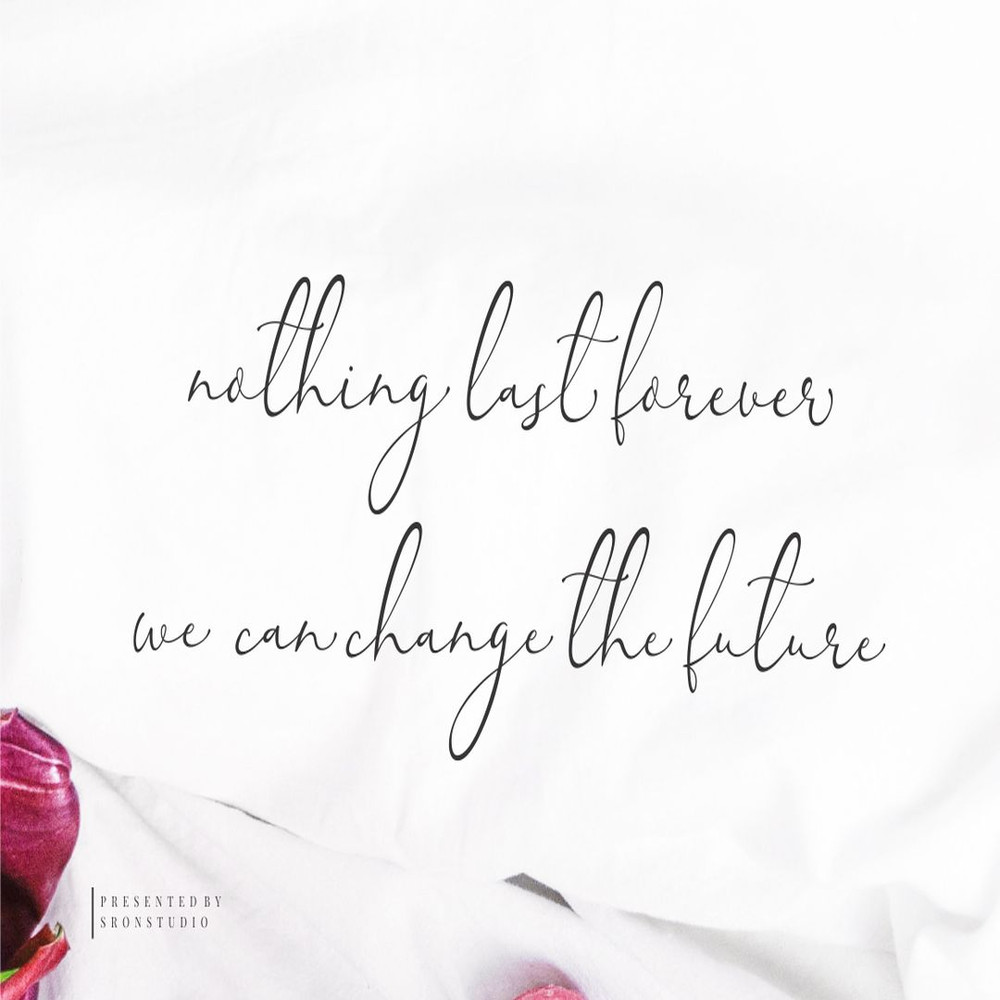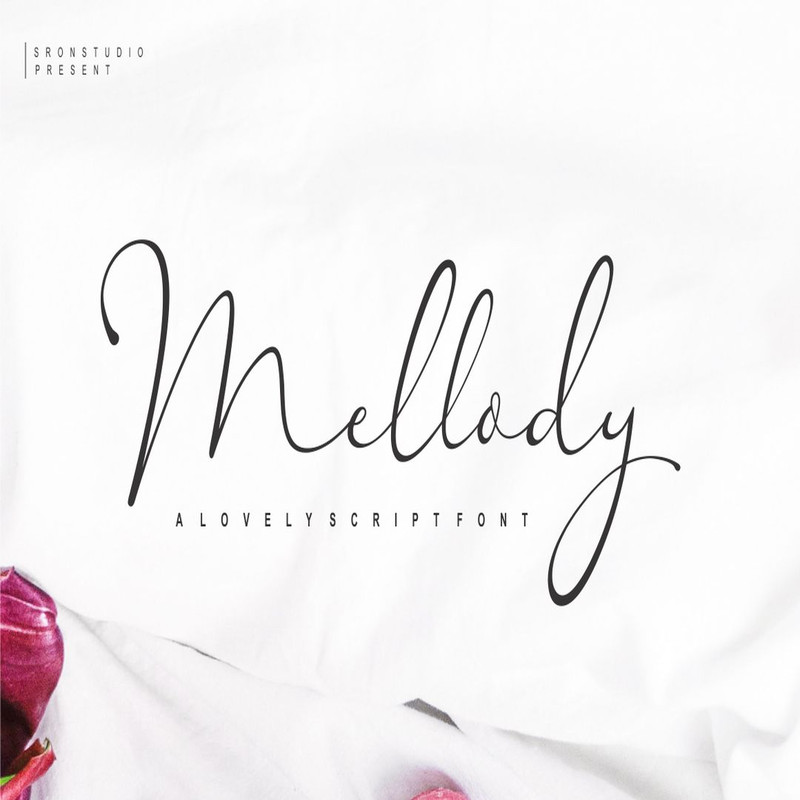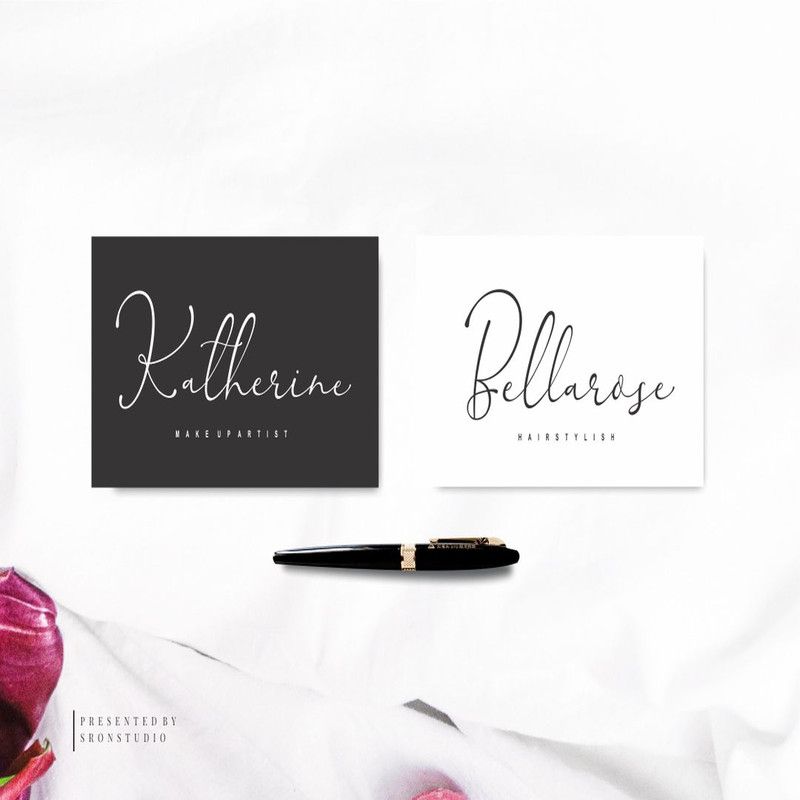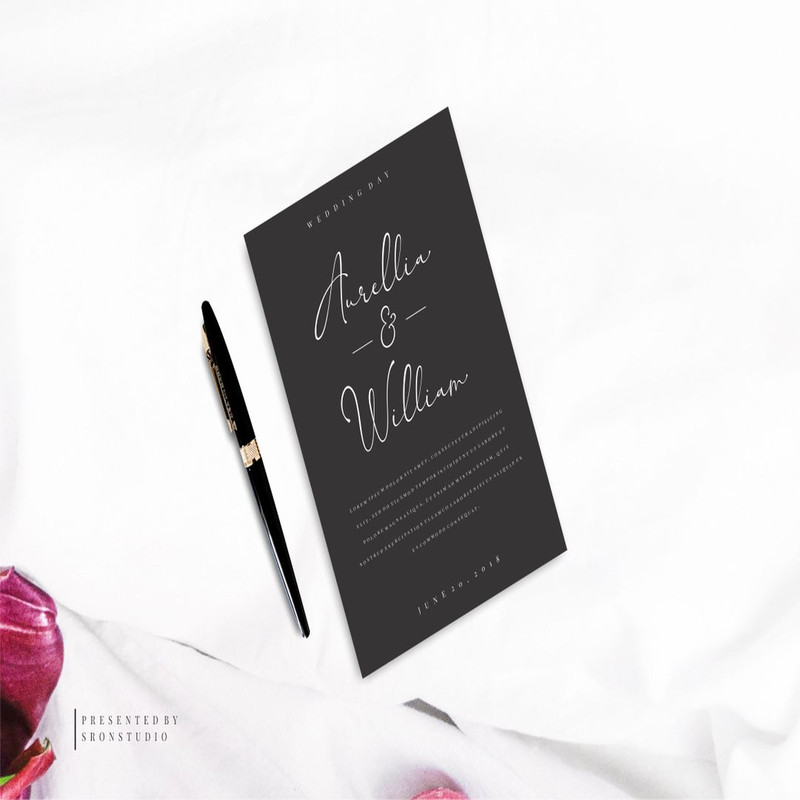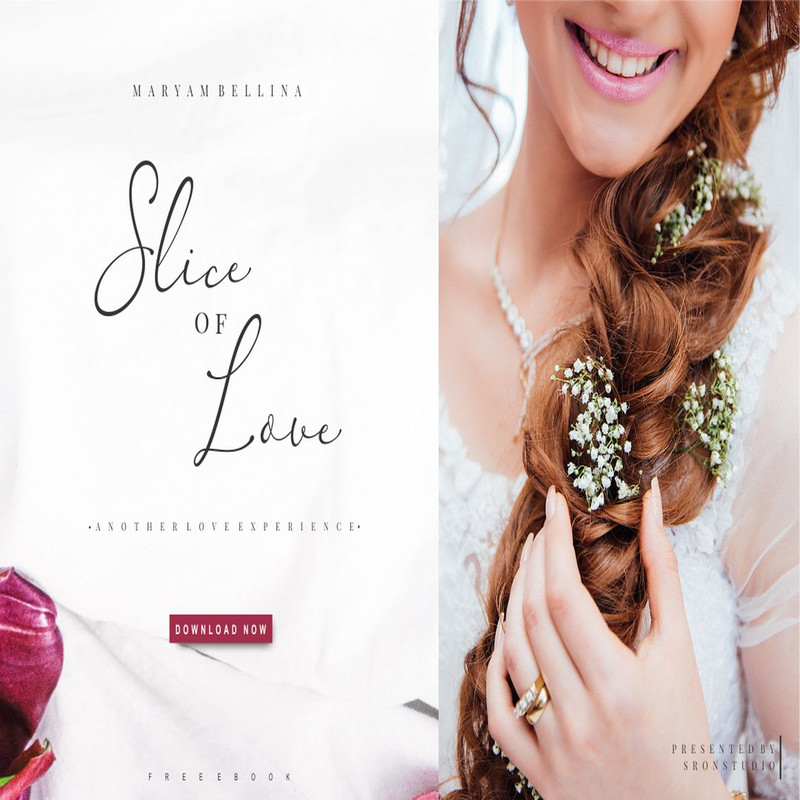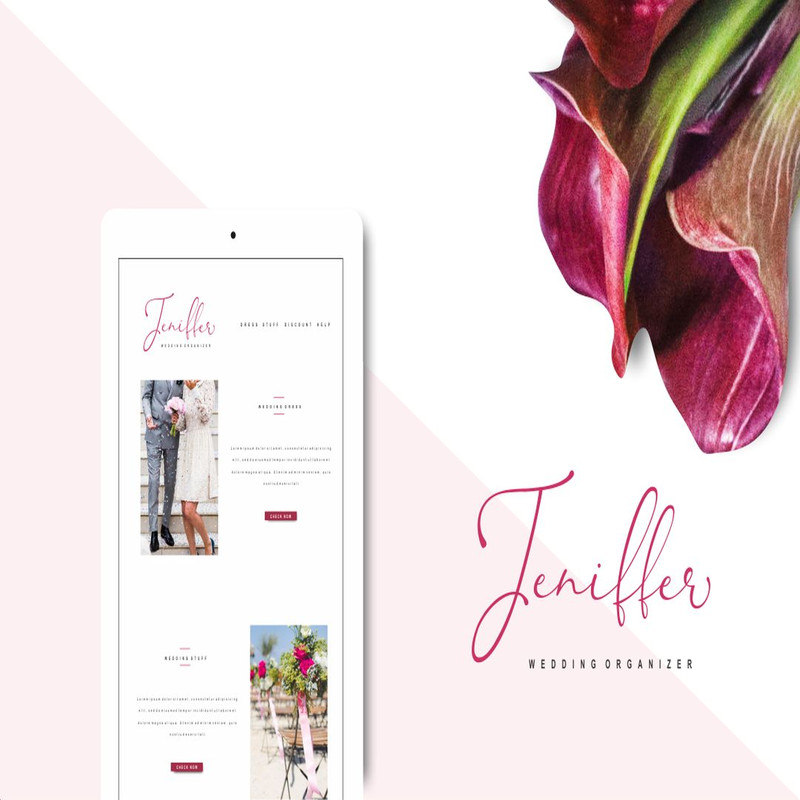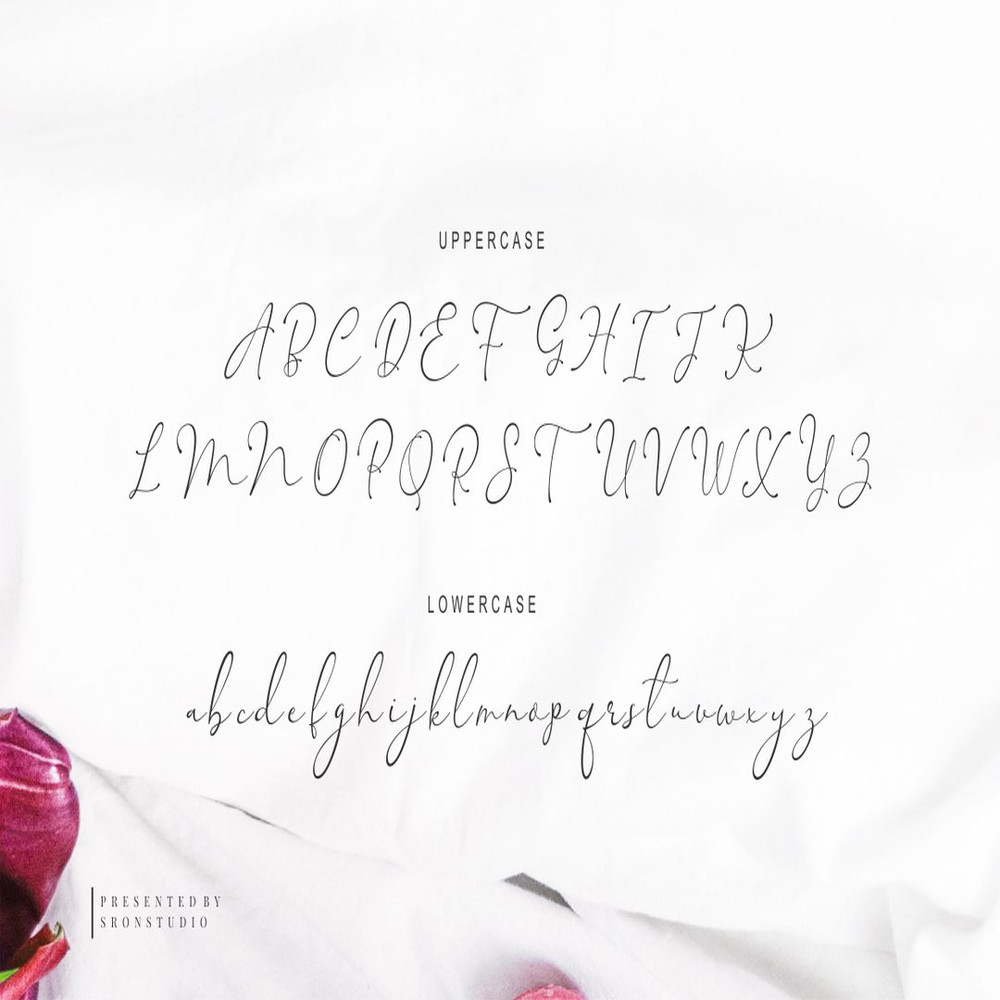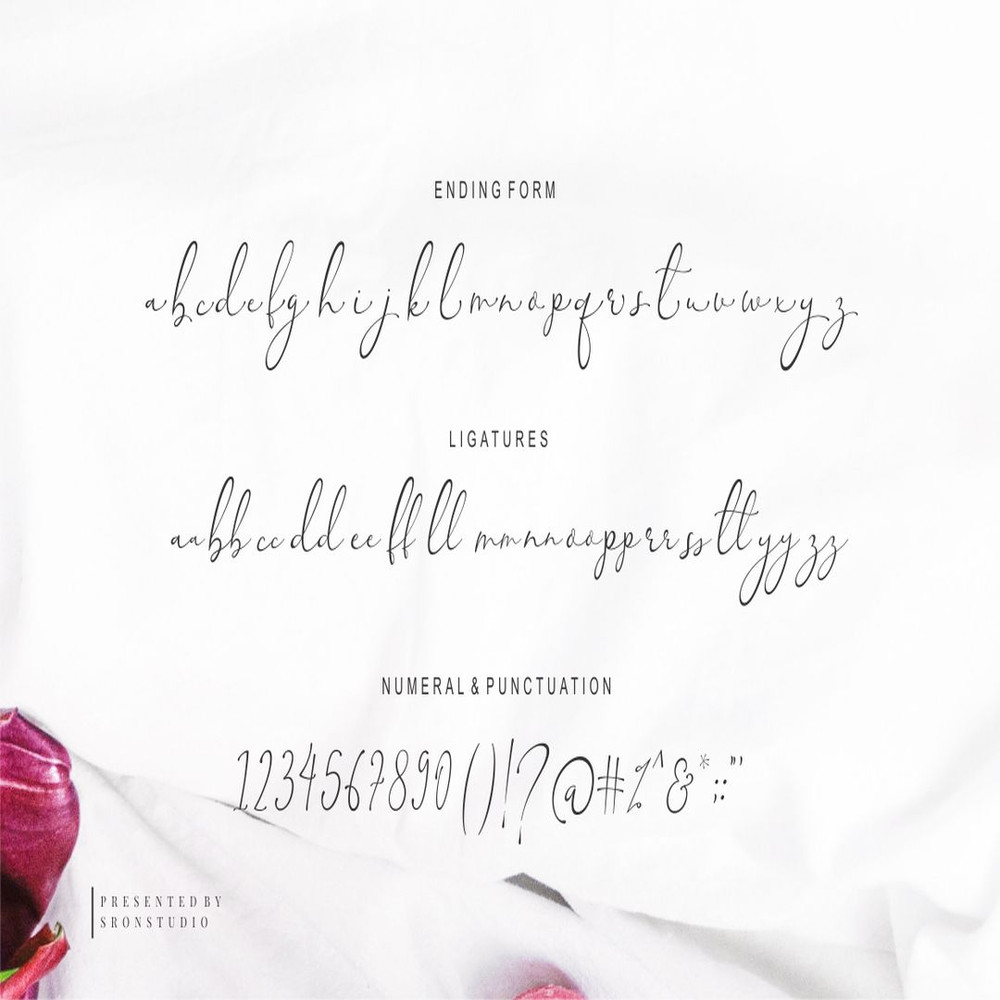
Mellody Script Trending Fonts - Digital Font
Introducing Mellody – a new modern & fresh script with a stylish handwritten and script style make this font looks natural, classy, natural and perfect for any awesome projects that need handwriting taste.
Mellody is perfect for many different project such as logos & branding, invitation, stationery, wedding designs, social media posts, advertisements, product packaging, product designs, label, photography, watermark, special events or anything.